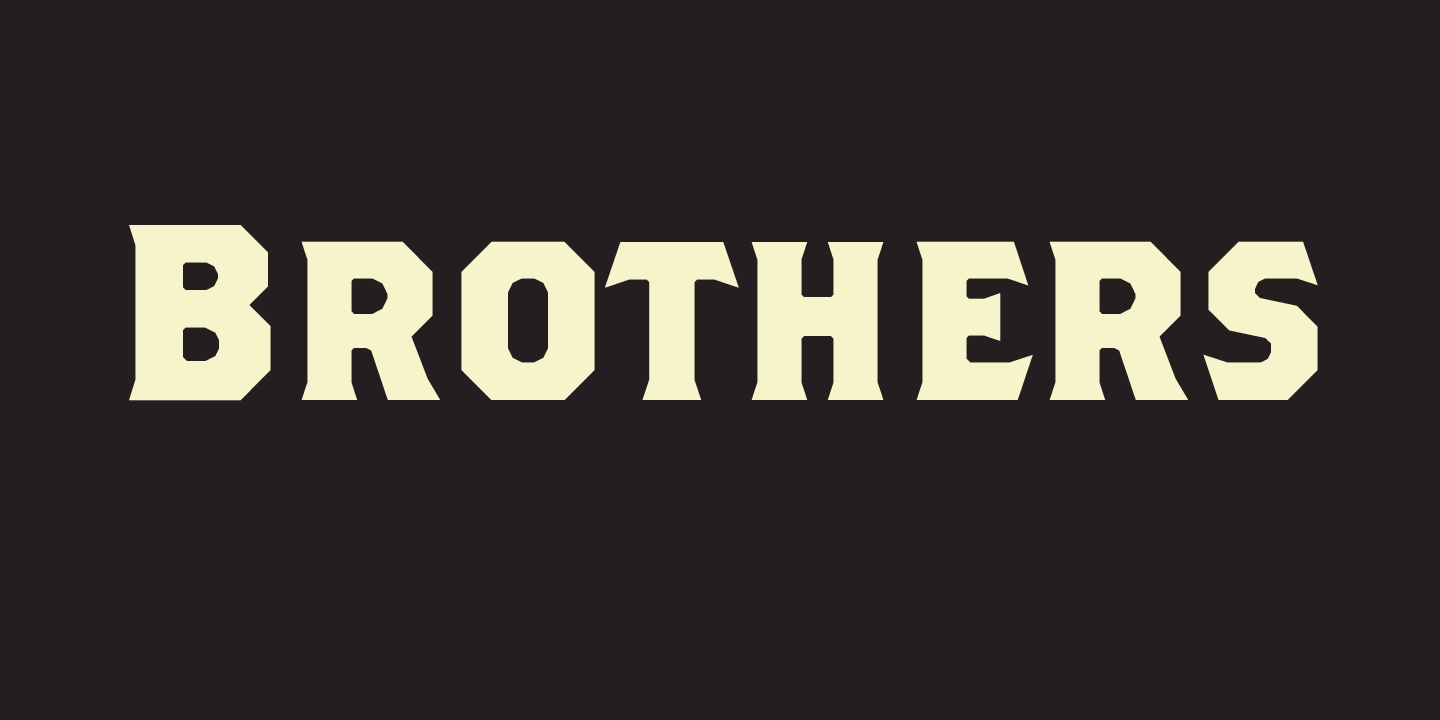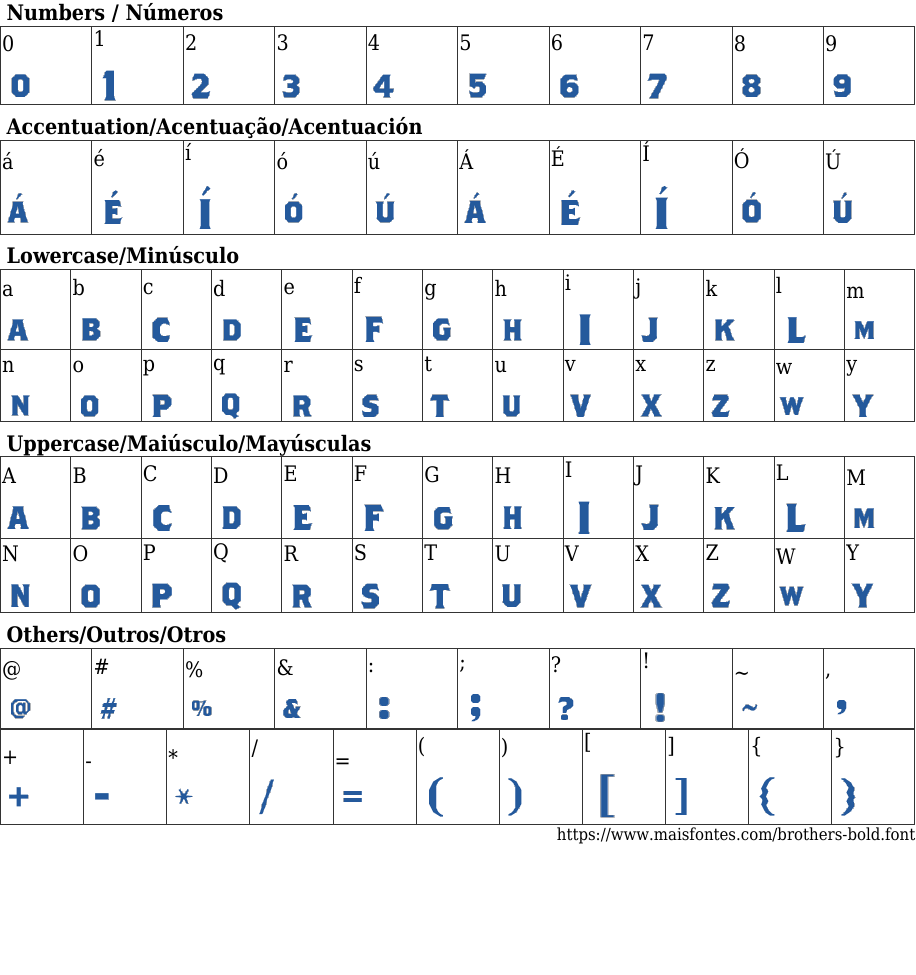
Brothers Bold Font - There is a quality of boldness and daring in the letters that reflects the directness and bravado of circus performers. As the brothers font series. A bold, angular font with a strong geometric style. Complete family of 4 fonts: This font features bold, angular characters with.